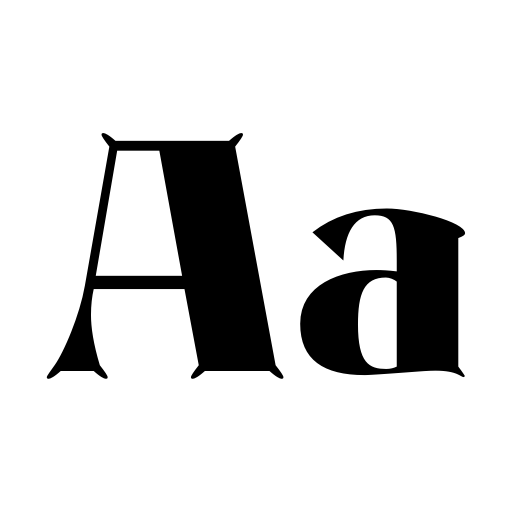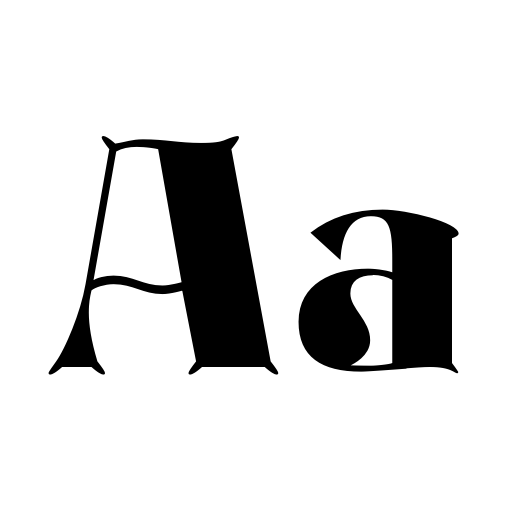
Black Biscuit is a quirky serif font with playful, organic letterforms that blend calligraphic curves and sharp edges. Its medium weight and uneven strokes give it a hand-crafted, artistic feel, making it ideal for creative logos, casual headlines, or unique packaging that seeks a distinctive, offbeat personality. This font works well where a lively, unconventional style is desired to stand out with character and charm.
Black_Biscuit Font